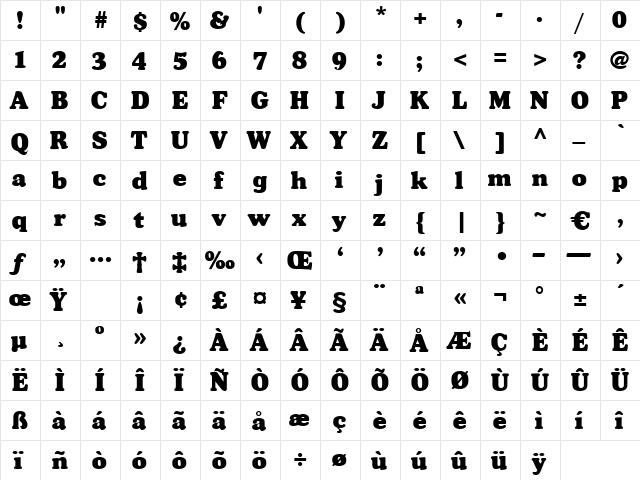
Trondheim Regular
Design Context for Trondheim Typeface
Trondheim takes a measured approach to typography — its balanced proportions and neutral character make it a reliable workhorse for both digital and print work.